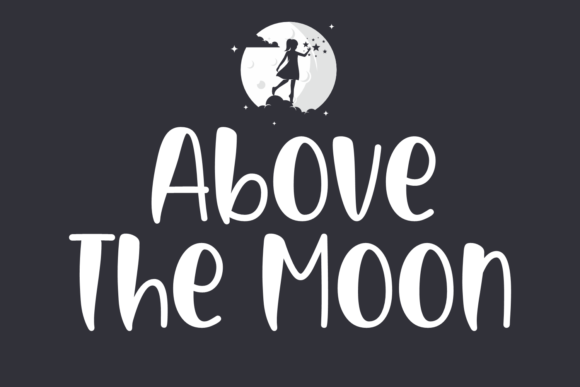
Above the Moon Font: A Playful and Creative Display Font
Are you looking for a font that can add a touch of playfulness and creativity to your designs? Look no further than the Above the Moon Font. This display font features a cute handwritten style that is perfect for a variety of design projects, from headlines and posters to branding and logos.
What is Above the Moon Font?
Above the Moon Font is a unique and creative font that is designed to add a personal touch to your designs. Its handwritten style gives it a friendly and approachable feel, making it perfect for designs that need to connect with the audience on a personal level. The font is highly legible, even at smaller sizes, making it versatile and easy to use.
Key Features of Above the Moon Font
- Playful and Creative: Above the Moon Font is a playful and creative display font that can add a touch of fun to your designs.
- Cute Handwritten Style: The font features a cute handwritten style that gives it a friendly and approachable feel.
- Highly Legible: The font is highly legible, even at smaller sizes, making it versatile and easy to use.
- Multipurpose: Above the Moon Font can be used for a variety of design projects, from headlines and posters to branding and logos.
Uses of Above the Moon Font
Above the Moon Font is a versatile font that can be used for a wide range of design projects. Here are some ideas to get you started:
- Headlines: Use Above the Moon Font to create eye-catching headlines for your blog posts, articles, and website.
- Posters: Create stunning posters for events, promotions, and advertising campaigns using Above the Moon Font.
- Branding: Use Above the Moon Font to create a unique and memorable brand identity for your business.
- Logos: Design a custom logo for your business using Above the Moon Font.
- T-shirts: Create custom t-shirts with fun and playful designs using Above the Moon Font.
- Quotes: Use Above the Moon Font to create inspiring and motivational quotes for social media and other platforms.
Why Choose Above the Moon Font?
There are many fonts available that offer a similar style to Above the Moon Font, but here are a few reasons why you might want to choose this font for your next design project:
- Unique Style: Above the Moon Font has a unique and distinctive style that sets it apart from other fonts.
- Multipurpose: Above the Moon Font can be used for a wide range of design projects, making it a great value for designers and crafters.
Tips for Using Above the Moon Font
Here are a few tips for using Above the Moon Font in your designs:
- Use it for Headlines: Above the Moon Font is perfect for headlines, so use it to create eye-catching titles for your blog posts, articles, and website.
- Experiment with Colors: Try out different colors and combinations to find the perfect look for your design.
- Pair it with Other Fonts: Above the Moon Font can be paired with other fonts to create a unique and interesting look.
Above the Moon Font is a playful and creative display font that can add a touch of fun to your designs. Its cute handwritten style and highly legible design make it perfect for a wide range of design projects, from headlines and posters to branding and logos. With its ease of use and multipurpose design, Above the Moon Font is a great choice for designers and crafters looking to add a personal touch to their designs.